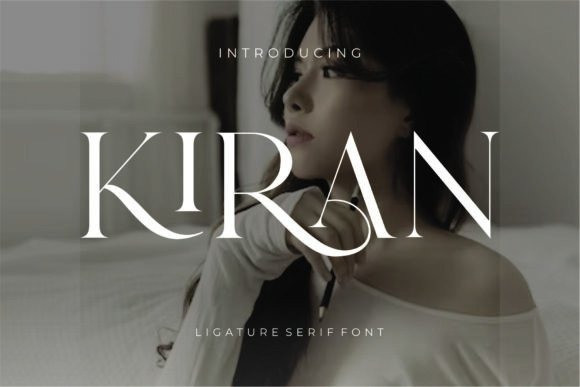
Kiran Font
Kiran Font – Ligature Serif Font, inspired by the famous minimalist logo perfect for the purposes of designing templates, brochures, videos, advertising branding, logos, invitation, layout design, elegant crafting, beauty design and more.